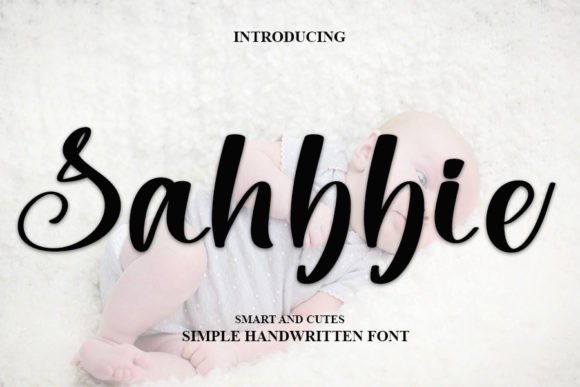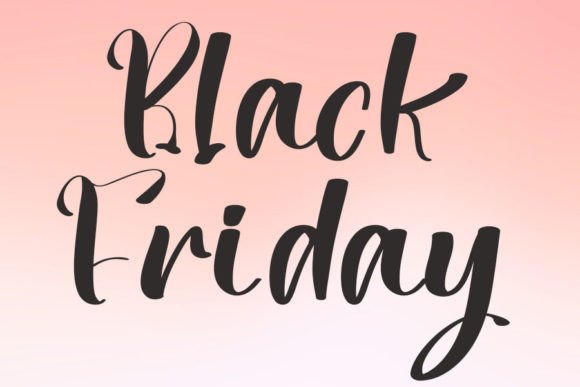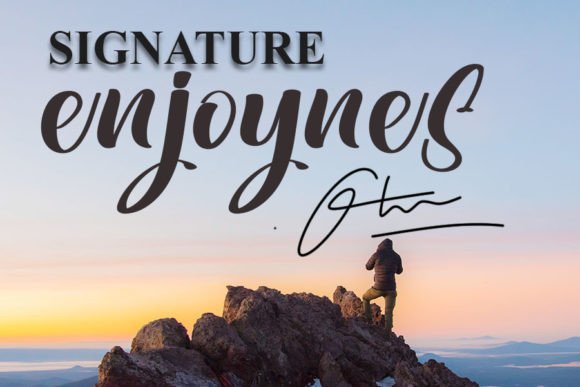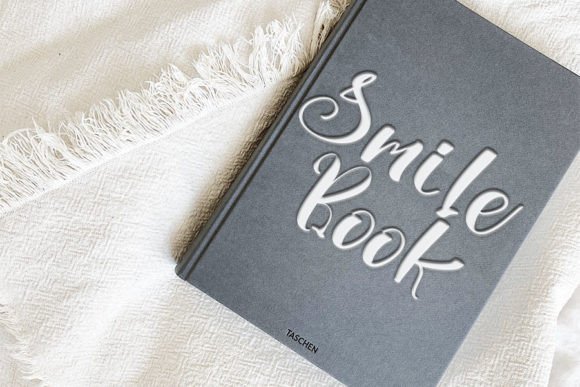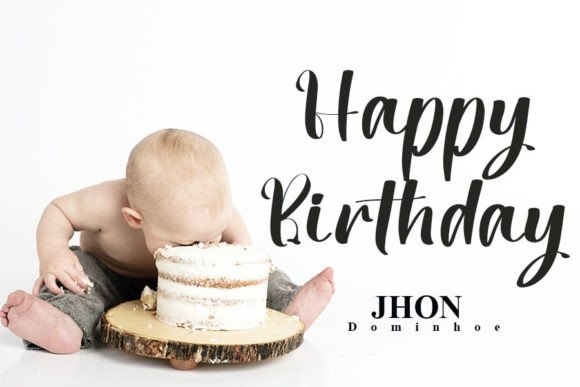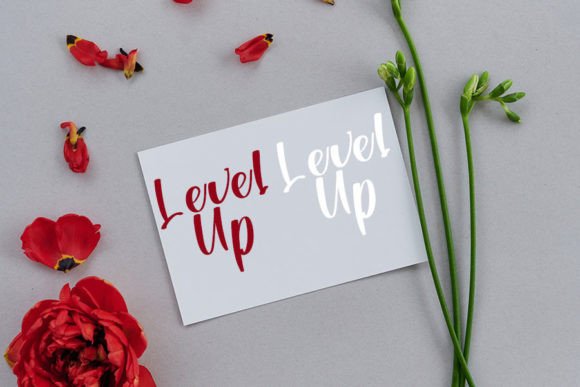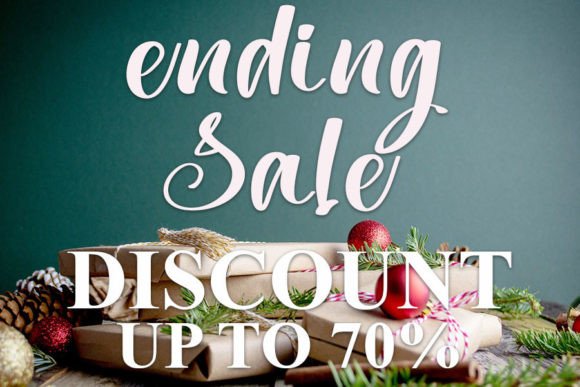
Sahbbie Font
Add a modern and elegant touch to your creative work with the Sahbbie font. This trendy handwritten script features a contemporary atmosphere combined with impeccable form. Inspired by timeless classic calligraphy, it is perfect for adding sophistication to your designs.
The Sahbbie font is well-suited for logos, branding, invitations, social media, and many other projects. Its smooth and stylish strokes provide a polished and refined appearance. This font enhances the visual appeal of any creative endeavor.
Each character in the Sahbbie font is crafted with precision to balance style and readability. This makes your designs not only beautiful but also clear and easy to understand. The font’s versatility allows it to adapt to various design applications.
Despite its elegant design, the Sahbbie font remains highly readable at different sizes. Whether used for bold headlines or delicate accents, it enhances your work with a classy and modern flair.
Using this font will help your designs stand out with a unique and memorable style. If you want to create trendy and elegant projects, the Sahbbiefont is an excellent choice.
In summary, the SahbbieFont fits a wide range of creative needs. From branding and invitations to social media and logos, it brings elegance and modernity. Download it today and create stunning, polished designs with this trendy handwritten script.